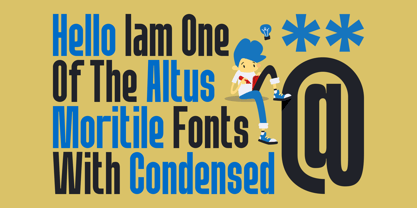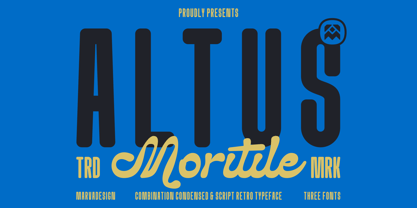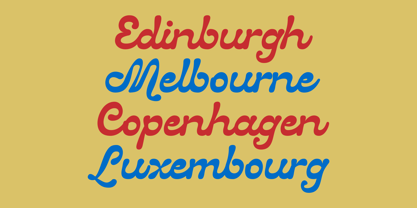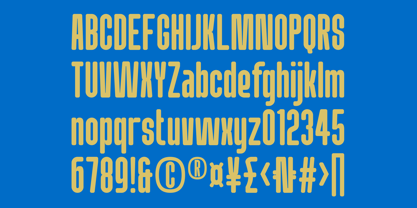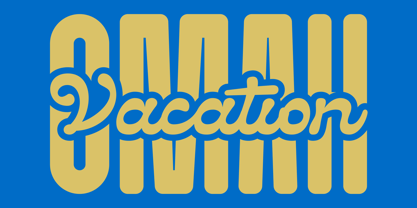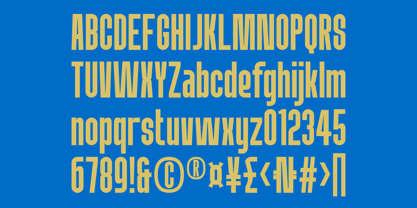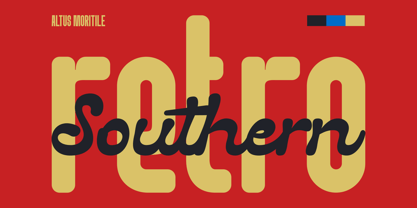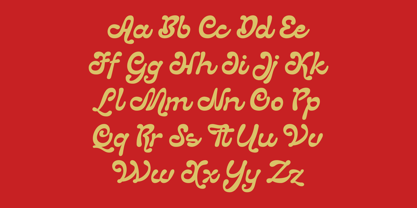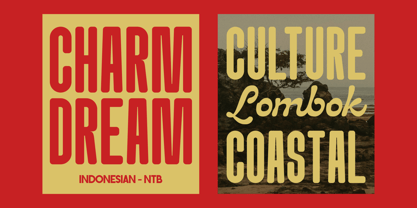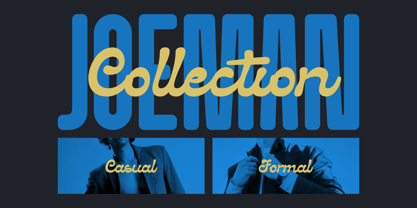
Altus Moritile
by Marvadesign
The Altus Moritile Font Family was designed by Febrie Setiawan and published by Marvadesign. Altus Moritile contains 3 styles and family package options.
Altus Moritile is a bold, retro inspired display typeface family that combines condensed strength with expressive elegance, available in three cohesive styles Regular, Rounded, and Script. The Regular style features tall, condensed letterforms with solid stroke weight and confident vertical proportions, delivering a strong, structured, and impactful presence ideal for headlines and branding. The Rounded style maintains the same condensed foundation but softens the corners and terminals, creating a warmer, friendlier, and more approachable tone without losing visual power. Completing the family, the Script style introduces flowing cursive forms with smooth curves and subtle stroke modulation, adding a handcrafted, vintage charm that enhances logos, taglines, and accent typography. Together, these three styles form a versatile and harmonious system, allowing designers to create dynamic compositions that balance boldness, warmth, and elegance within a unified typographic identity.